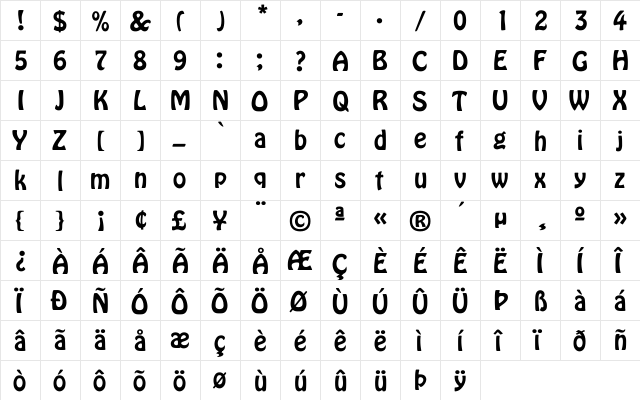
Daventry Regular
Design Context for Daventry Typeface
Daventry offers clean, dependable letterforms without strong stylistic allegiance, making it a practical choice for designers who need flexibility.